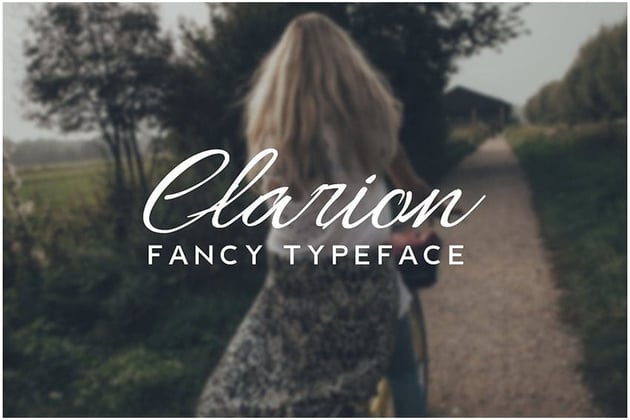
44 Best Fancy Cursive Fonts (Tattoo, Calligraphy, Script, and Writing Fonts)
Looking for fancy cursive fonts for your next design project? Check out this list of elegant fancy cursive fonts. Whether you're looking for fancy cursive fonts for tattoos, fancy cursive fonts for Cricut projects, or fancy fonts for another design project, there's plenty here to see and download now.
Why Use Fancy Cursive Fonts?
Fancy fonts can be a great choice for points of emphasis, like titles, logos, and other parts of your design that really need to command attention. This is especially the case when you're going for an elegant, classy, or ornate aesthetic.
But fancy cursive fonts can come in a variety of aesthetics too. There are your traditional, elegant, cursive calligraphy fonts, but there are also stylish, modern cursive writing fonts. Script and cursive fonts can bring a hand-drawn or even organic look to your compositions.
1. Quenyland: Fancy Cursive Script Font
This elegant font has long, sweeping strokes and could be such a wonderful choice for invitations, branding, business cards, and so much more. Try it against interesting textures or in gold foil.
2. Welstendy: Fancy Bold Cursive Font
Love a chunky script font? Then you're going to love this stylish calligraphy font. This one would be such a fun font to try with a Cricut machine too.
3. CLARION: Fancy Cursive Letters Font
Here's a thinner script font with some really interesting variation. Try pairing this one with photography, or let it hold its own on a solid background. There's plenty of potential here.
4. Tiffanky Monoline Cursive Letters Fancy Font
Prefer a script font with less variation in the line work? Check out this fancy font. It still has plenty of elegant twists and curves, but with a solid, steady line.
5. Shorelines Typeface (Fancy Cursive Writing Fonts)
Here's a longer script font with some really interesting extras you can experiment with. It's an elegant choice if you're looking for a handwriting font to use in your next project.
6. Riviera Signature Fancy Cursive Tattoo Fonts Alphabet
Isn't this a fun, stylish font? It would be an awesome choice for tattoo design, as it has a touch of a retro feel to it. Try it for poster design, branding, and much more.
7. Honey Peach Fancy Cursive Script Font
If you're looking for a friendly, playful script font, this one might be right up your alley. This font could also work well if you're looking for fancy cursive number fonts.
8. Sweet Valentine's: Stylish Elegant Fancy Cursive Fonts
Here's a sweet, bouncy font with some calligraphic inspiration. Try out this calligraphy font in a variety of situations, like on T-shirts, posters, invitations, and much more.
9. Zelda Fancy Cursive Fonts for Tattoos (Cursive Fancy Calligraphy Fonts)
Isn't this an elegant font? The swashes here really push the aesthetic further. Try this out with your favorite saying or name. It would also make for a great tattoo font.
10. Berttina Fancy Cursive Letters Font
This modern calligraphy font has so much personality. It's easy to imagine this one on T-shirts, mugs, and so much more. This one could be particularly fun as a Cricut font.
11. Santiago Fancy Cursive Fonts Script
This fancy cursive font has so much signature inspiration. Use it for projects that would benefit from some elegant, hand-drawn flair, like packaging or business cards.
12. Calia Macitta Cursive Fancy Calligraphy Fonts
If you're looking for high-end elegance, this font might be just the right aesthetic. Doesn't it pair wonderfully with wedding photos? It really lends itself well to a classy, fairytale feeling.
13. Zombis Night (Cursive Letters Fancy Font)
This cursive font has high contrast, and it really helps establish its elegant, curvy feel. While this display font would be best at larger sizes, it could work in a variety of design situations.